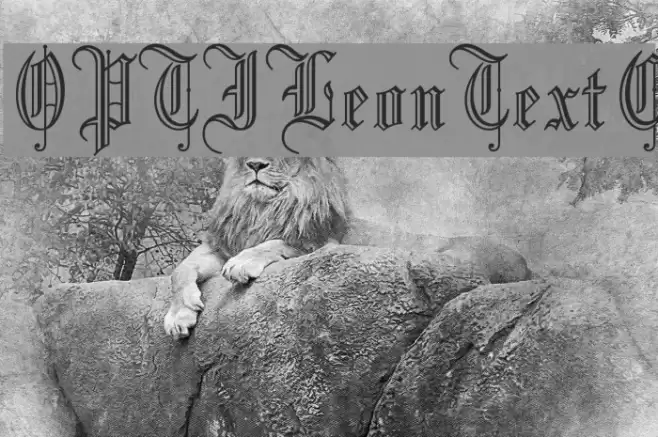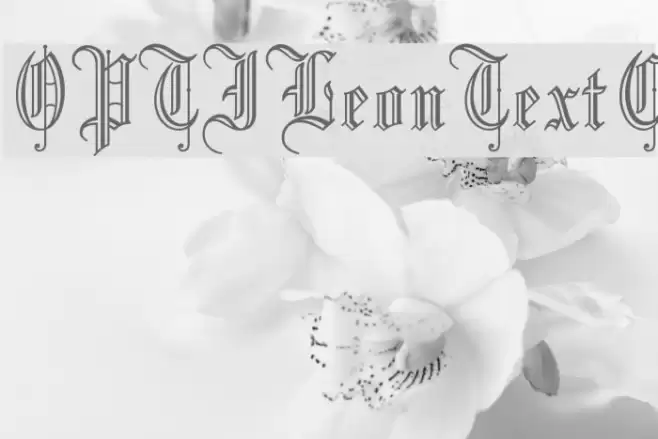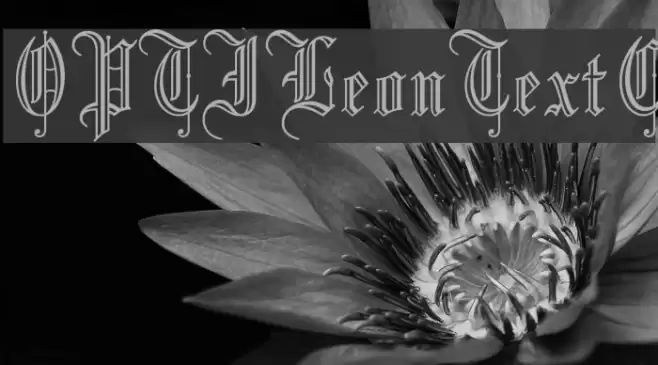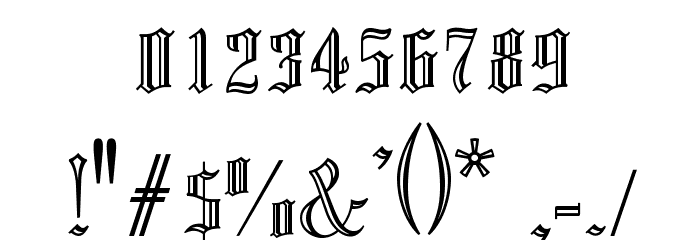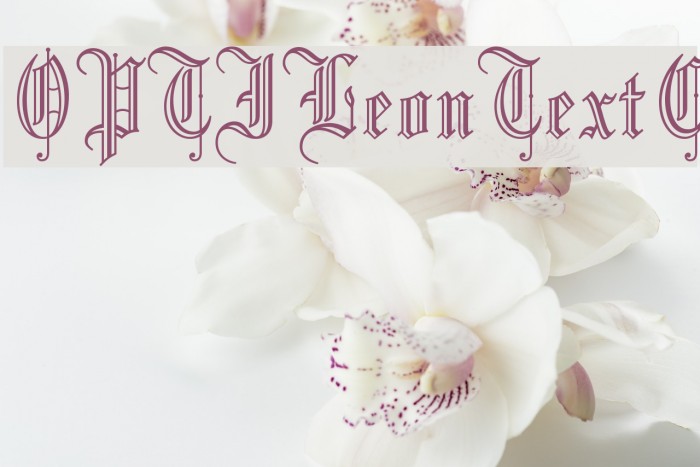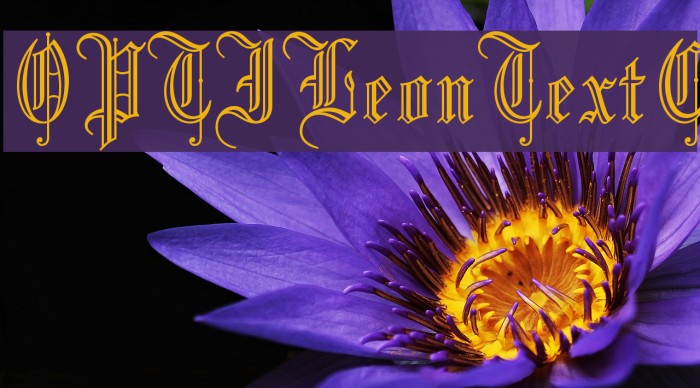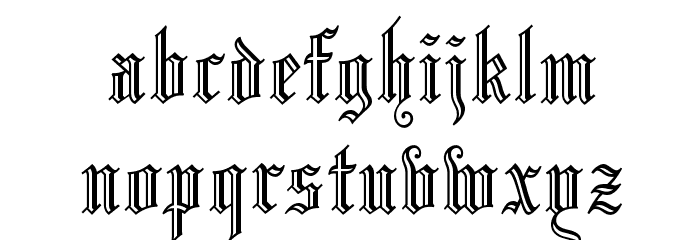
OPTILeonTextC Font
OPTILeonTextC Description
This font exudes a classic and ornate style, reminiscent of traditional Gothic or Blackletter typefaces. The characters are intricately designed with elaborate flourishes and sharp, angular lines, giving it a distinctly medieval appearance. The uppercase letters are particularly decorative, featuring extended serifs and intricate loops. The lowercase letters maintain the same level of detail, with some characters having unique ascenders and descenders that add to the overall complexity. The numerals are consistent with the style, featuring sharp edges and a bold presence. Special characters and punctuation marks are equally ornate, fitting seamlessly with the rest of the font. This typeface is ideal for projects that require a historical or formal aesthetic.
An ornate, Gothic-style font with intricate details and sharp, angular lines from Uncategorized fonts.
- Proposed Projects: Ideal for historical documents, wedding invitations, certificates, or any project requiring a formal, medieval aesthetic.
- Overall Style: Vintage
- Use Case: Logos, Headlines, Decorative text